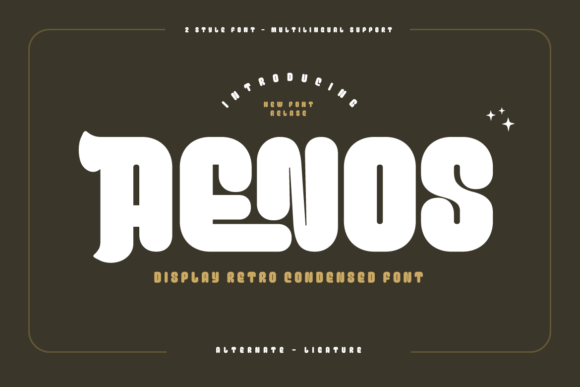
Unleash the Majesty of Aenos: A Retro Condensed Display Font for Memorable Wedding Videos
In the grand tapestry of life's moments, weddings shimmer with a radiance that deserves to be forever cherished. Aenos, the majestic retro condensed display font, emerges as the perfect creative companion to immortalize these precious memories in wedding videos. Its bold, sturdy appearance commands attention, transforming titles and headlines into captivating works of art.
Experience the allure of Aenos, a font that exudes strength, uniqueness, and cleanliness. Its carefully crafted ligatures and Alternate characters add an extra layer of sophistication, inviting you to explore boundless creative possibilities. Whether you're a seasoned professional or a passionate enthusiast, Aenos empowers you to elevate your wedding videos to new heights of elegance and charm.
Imagine your wedding video opening with a title that dances across the screen in the bold, confident strokes of Aenos. It's like an invitation to embark on a journey of love, laughter, and happy tears. The font's sturdy presence ensures legibility even at medium or large font sizes, ensuring your message is delivered with clarity and impact.
Aenos is not just a font; it's a gateway to creative expression. Let your imagination soar as you craft titles that capture the essence of the day, headlines that summarize the emotions, and text overlays that provide context and depth to your storytelling. With Aenos as your creative ally, your wedding videos will transcend the ordinary and become cherished keepsakes that evoke memories for generations to come.
Visualize the awe-inspiring moments of the ceremony, the joyous celebration of the reception, and the heartfelt speeches and toasts, all brought to life with the visual artistry of Aenos. It's the perfect font to showcase the beauty of the bride and groom, the love shared between families and friends, and the sheer joy of a day filled with happiness.
Aenos is more than just a font; it's an investment in your creative vision. Its versatility extends beyond wedding videos, making it an ideal choice for a wide range of projects, from social media graphics and marketing campaigns to product packaging and branding. Unleash the power of Aenos and watch your creative projects flourish with distinction and sophistication.